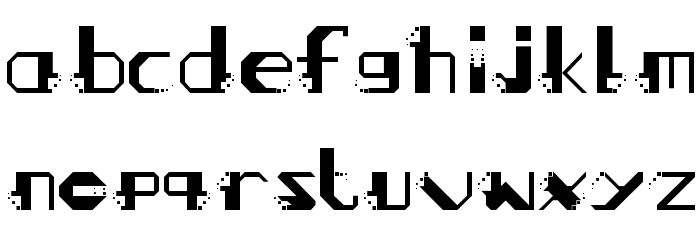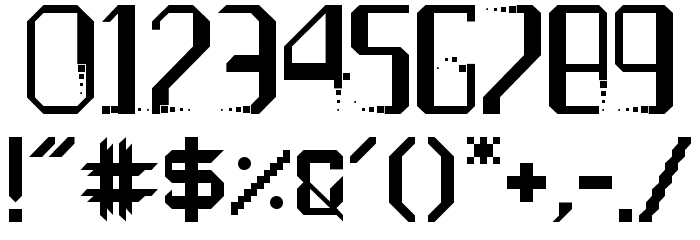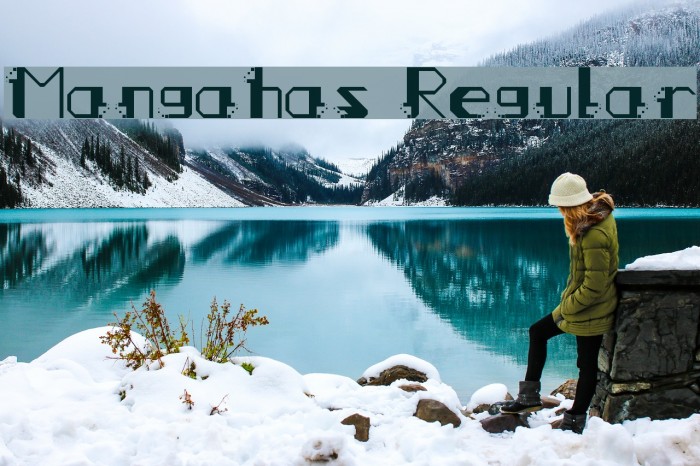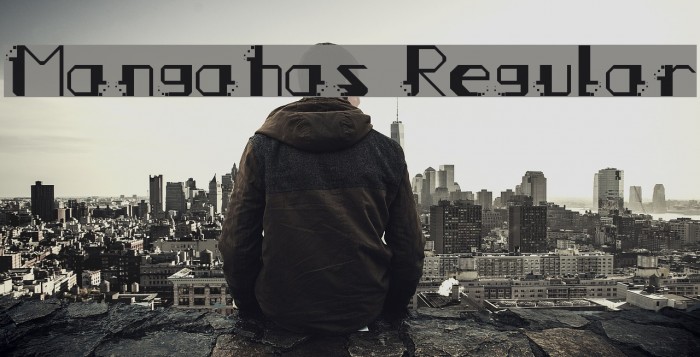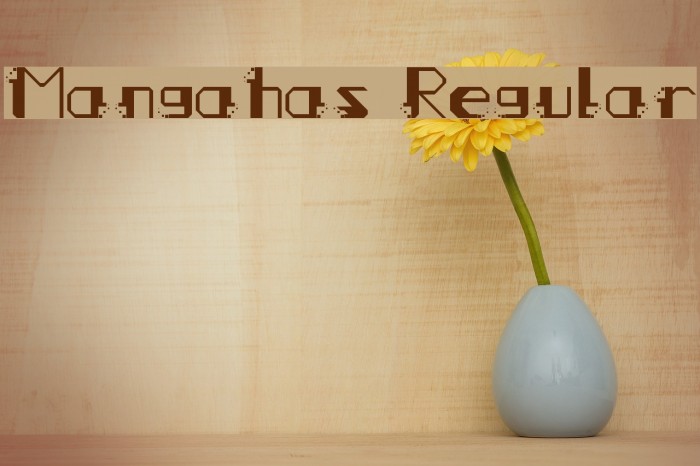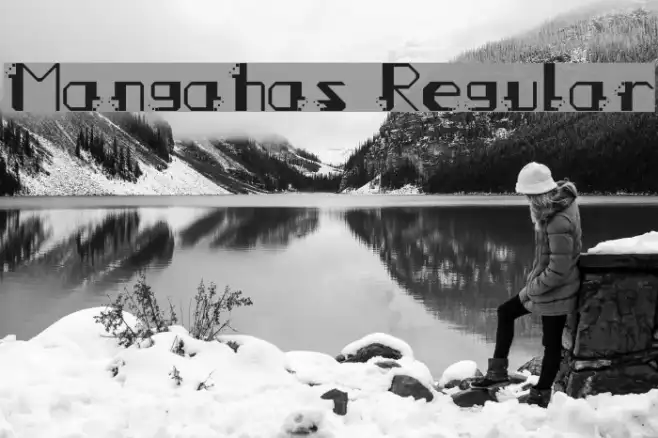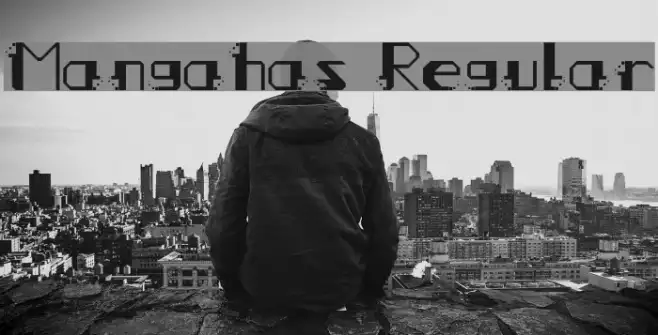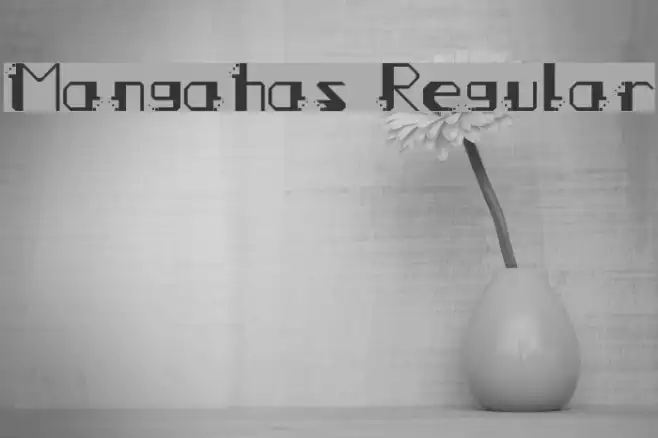
Mangahas Regular Font
This font features a bold and geometric design with a futuristic flair. The characters are constructed with sharp angles and straight lines, creating a sense of precision and modernity. The uppercase letters are particularly striking, with a blocky appearance that commands attention. The lowercase letters maintain the geometric theme but with slightly softer edges, providing a nice contrast to the uppercase set. Numbers and special characters are consistent with the overall style, ensuring a cohesive look across all text. This font's unique design makes it ideal for projects that require a modern and edgy aesthetic.
A bold, geometric font with a futuristic and modern design.
- Proposed Projects: Ideal for branding, posters, video game graphics, and tech-related projects.